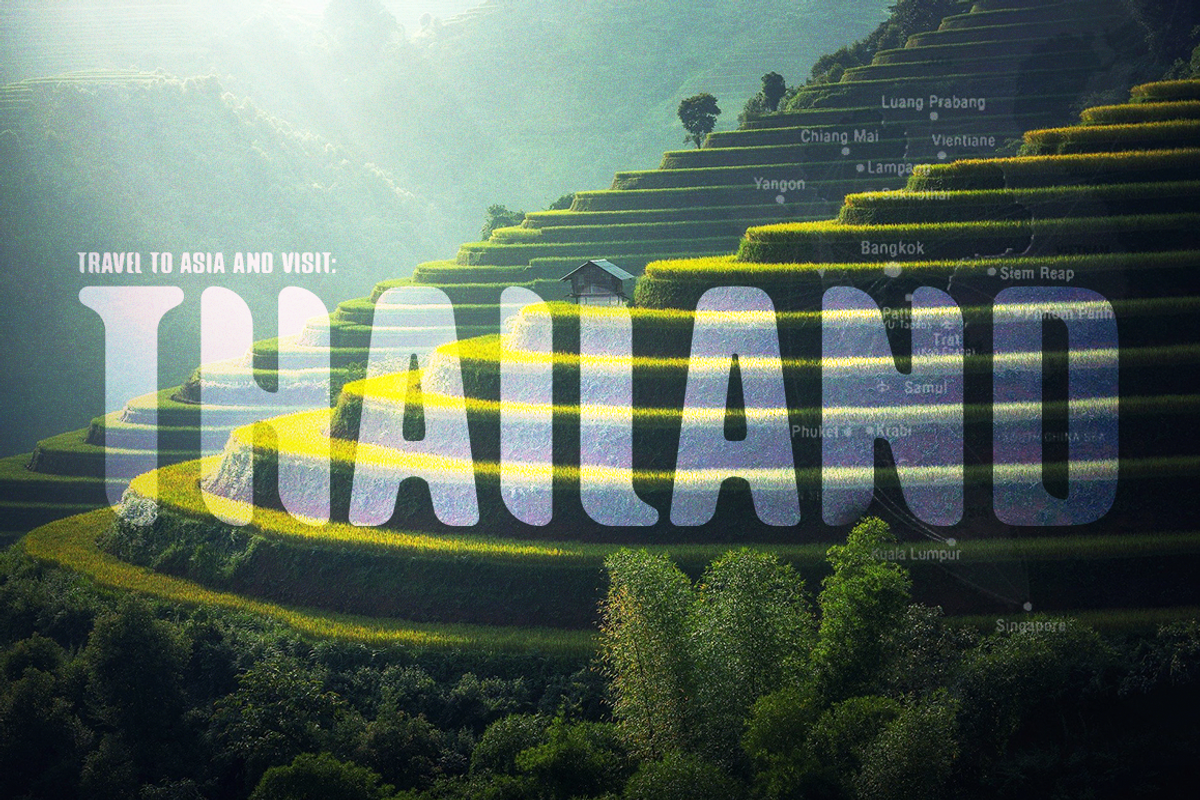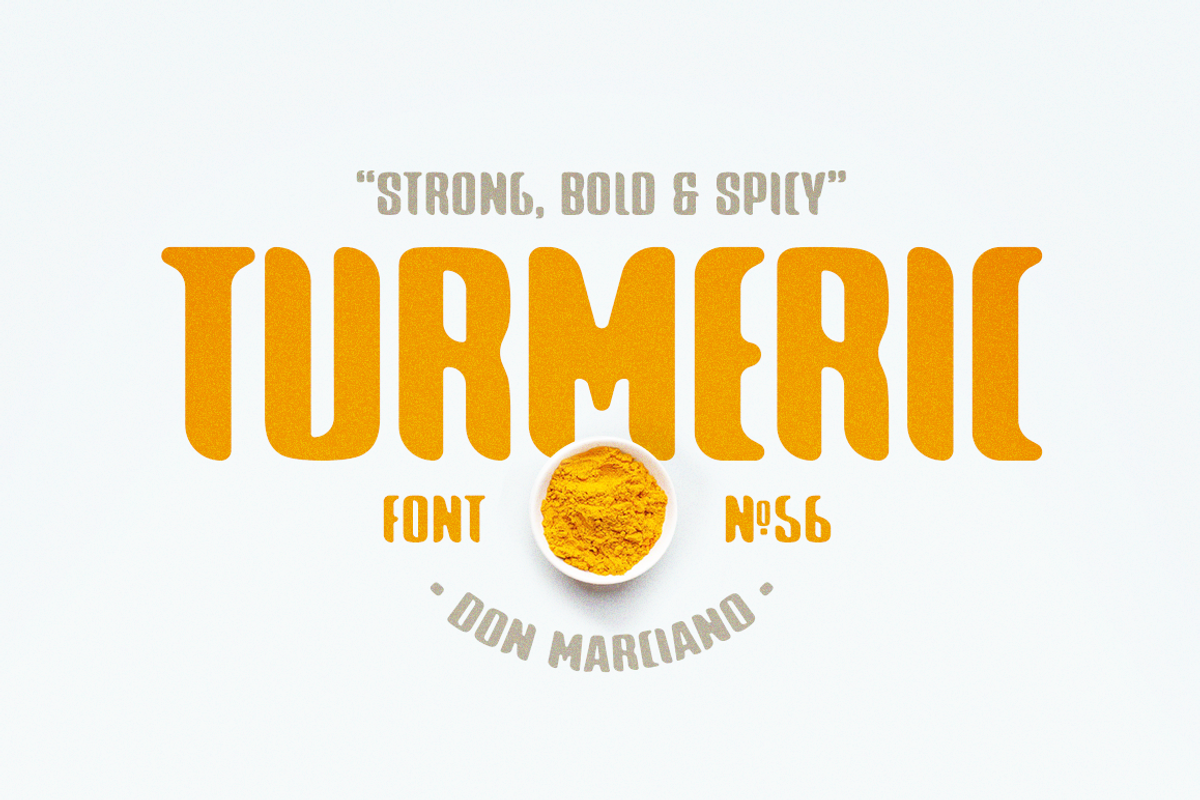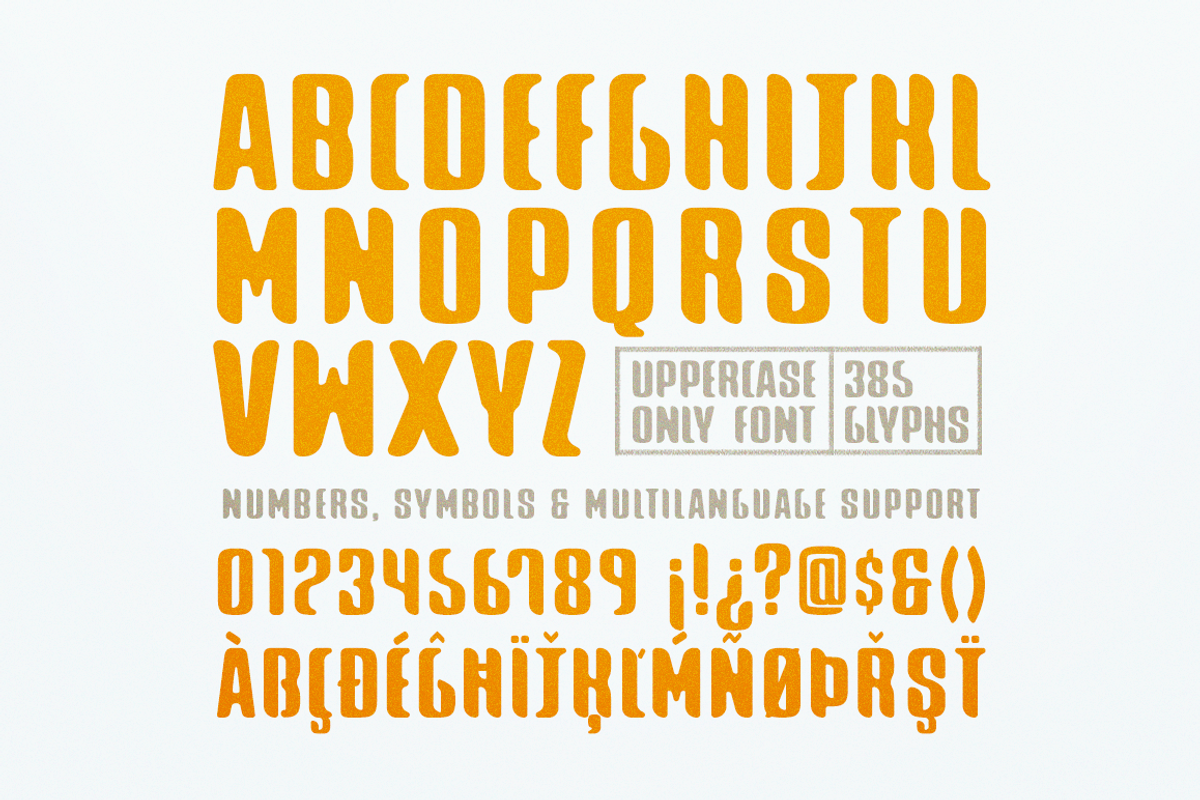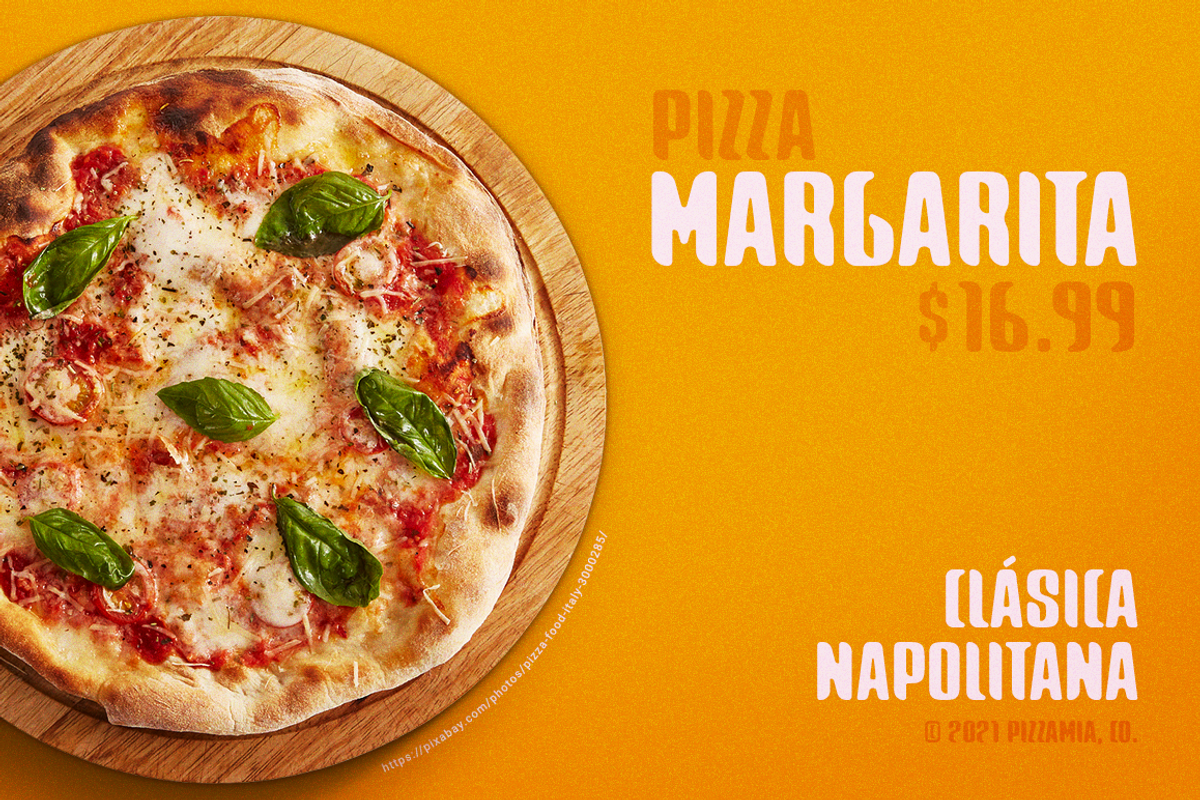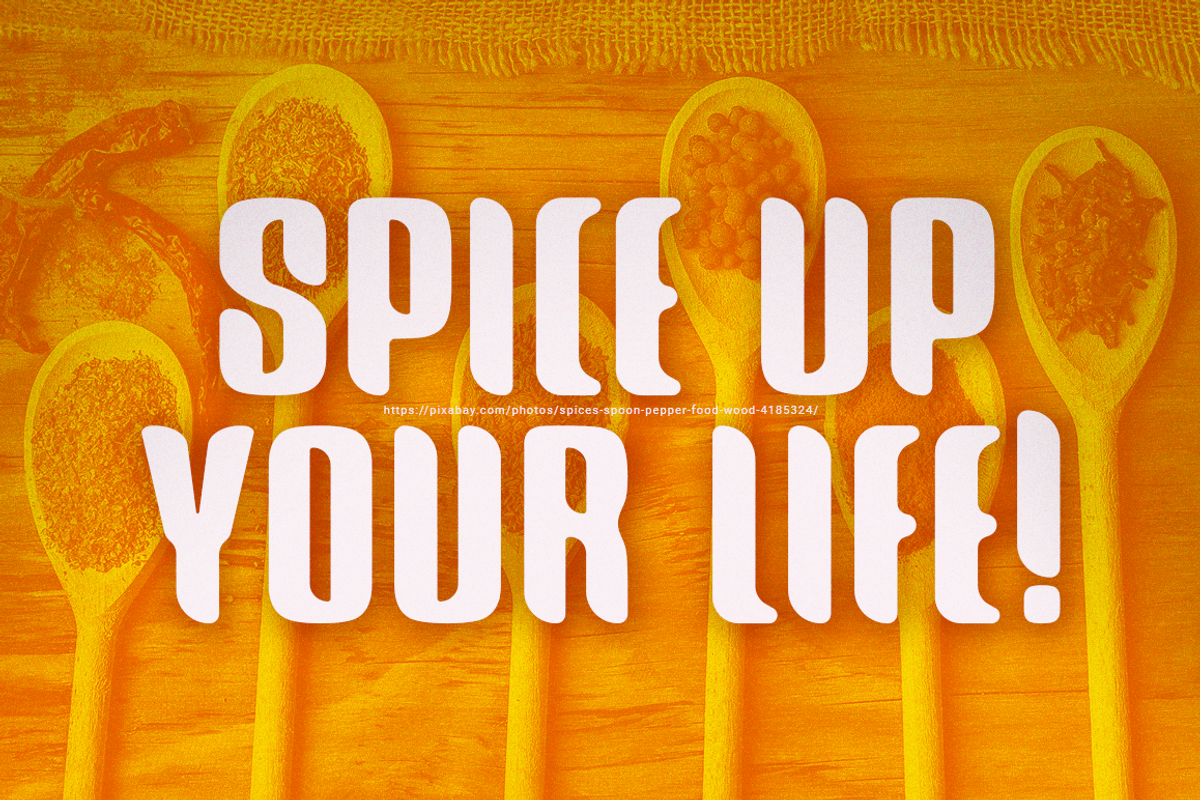
Turmeric spicy font
Turmeric is a strong, bold, and spicy font that can be used for all types of small or title styles texts! Its unique look and feel with uppercase characters alphabet only, standard punctuation, and international characters for multi-language support features will help you create gorgeous designs.